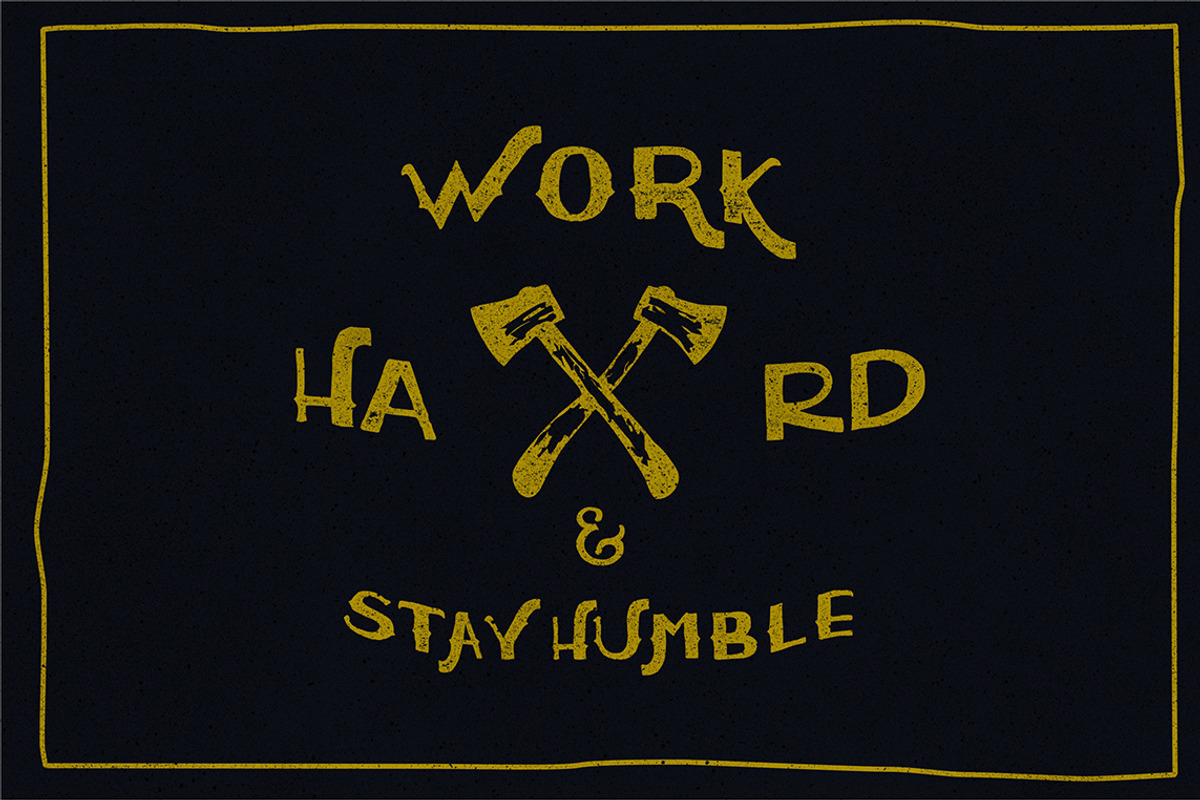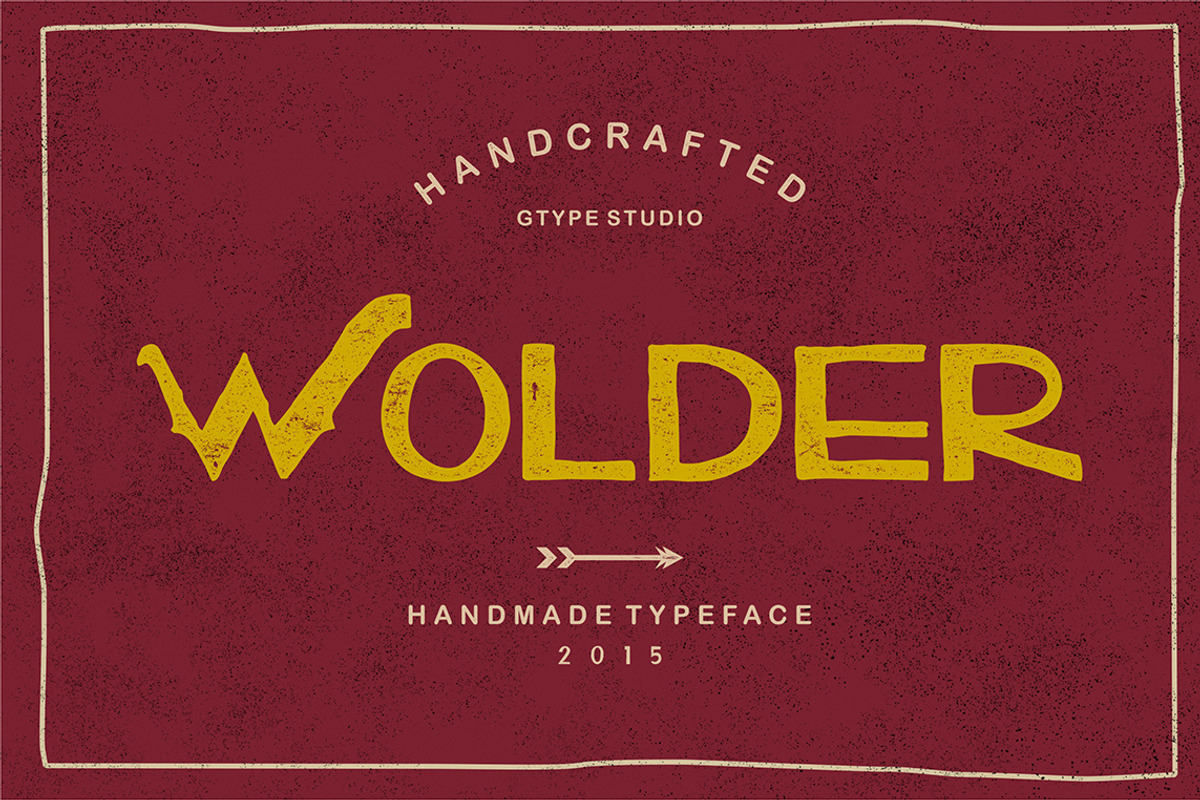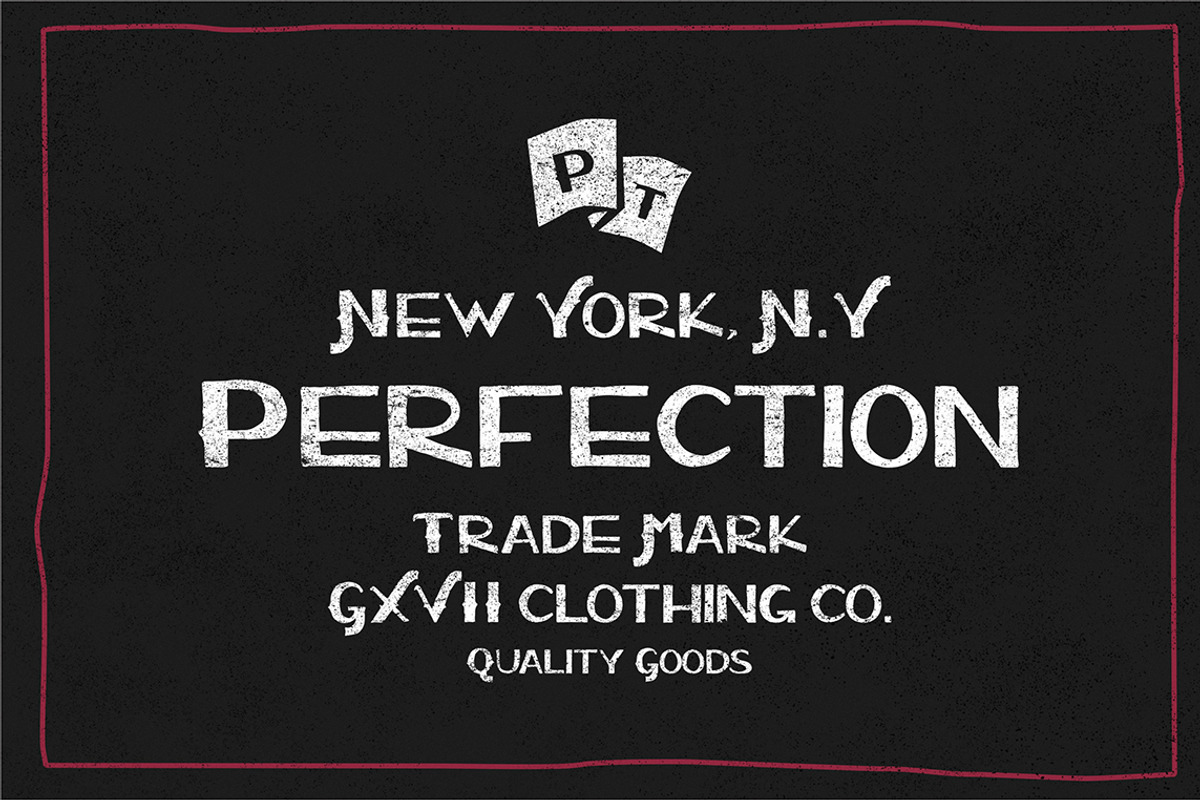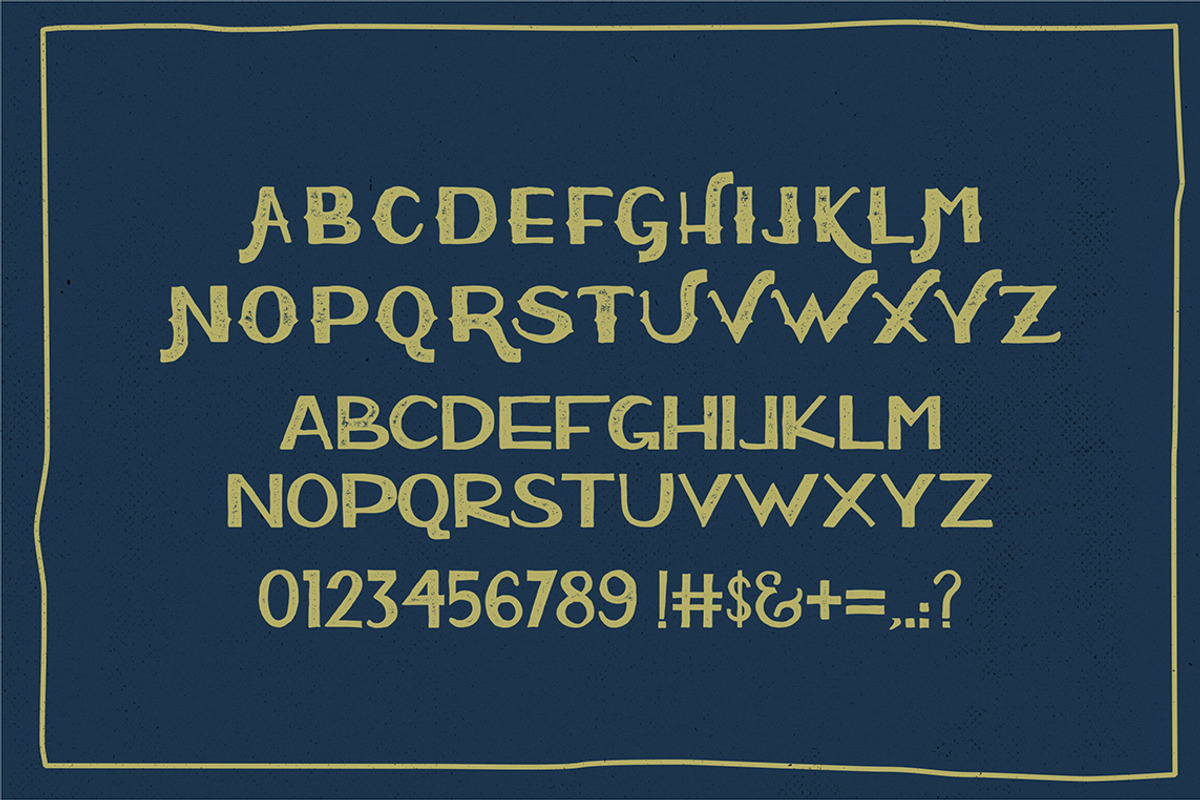
Wolder Typeface
Wolder Typeface by Areatype is a font selected for branding, posters, packaging, typography.
Why Wolder Typeface is worth a look
Wolder Typeface by Areatype fits naturally into Branding, posters, packaging, typography.